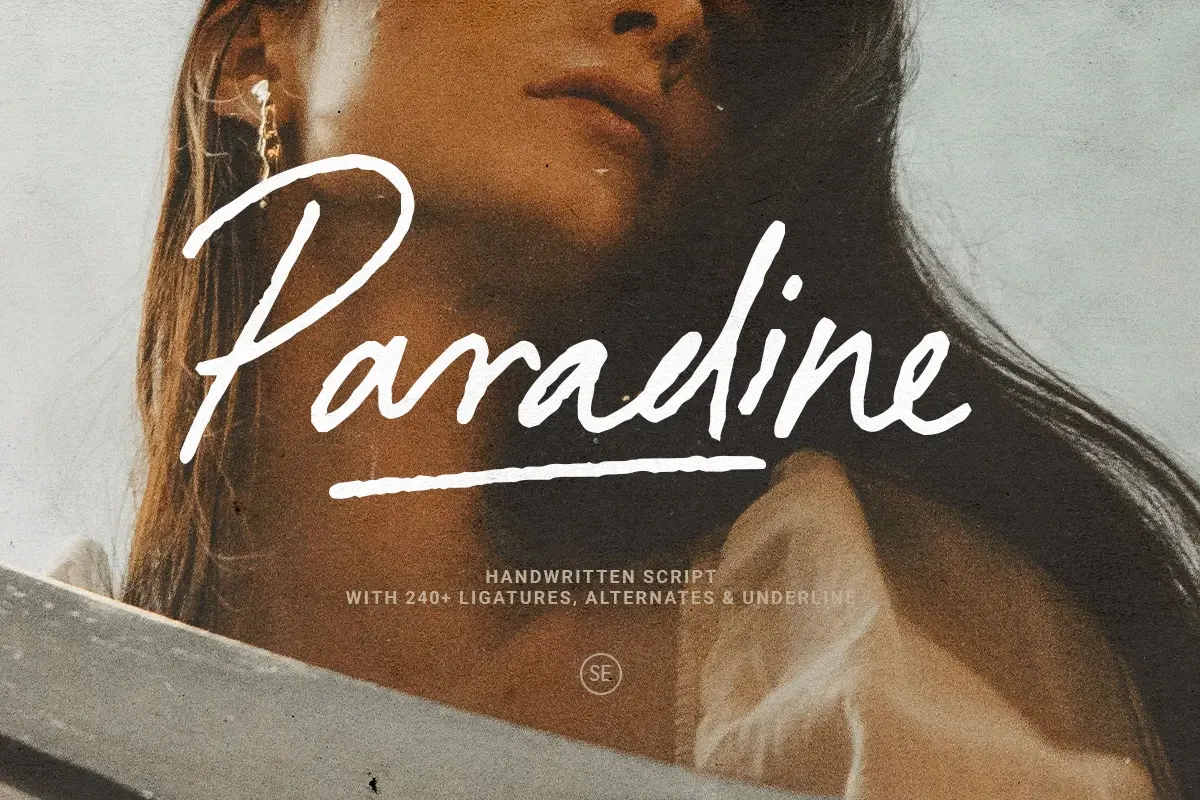
Paradine - Ligature Handwritten Font Free Download
The Paradine - Ligature Handwritten Font Free Download is a stylish and sophisticated handwritten script typeface with unique ligatures that add an extra touch of elegance and flow to your designs. Perfect for invitations, logos, branding, social media graphics, and personalized stationery, this font brings a creative, organic feel to any project.
With its smooth, flowing letterforms and beautiful ligature connections, Paradine offers a natural and authentic hand-lettered look. It includes uppercase and lowercase letters, punctuation, numbers, and multilingual support, providing flexibility for a wide range of design applications.